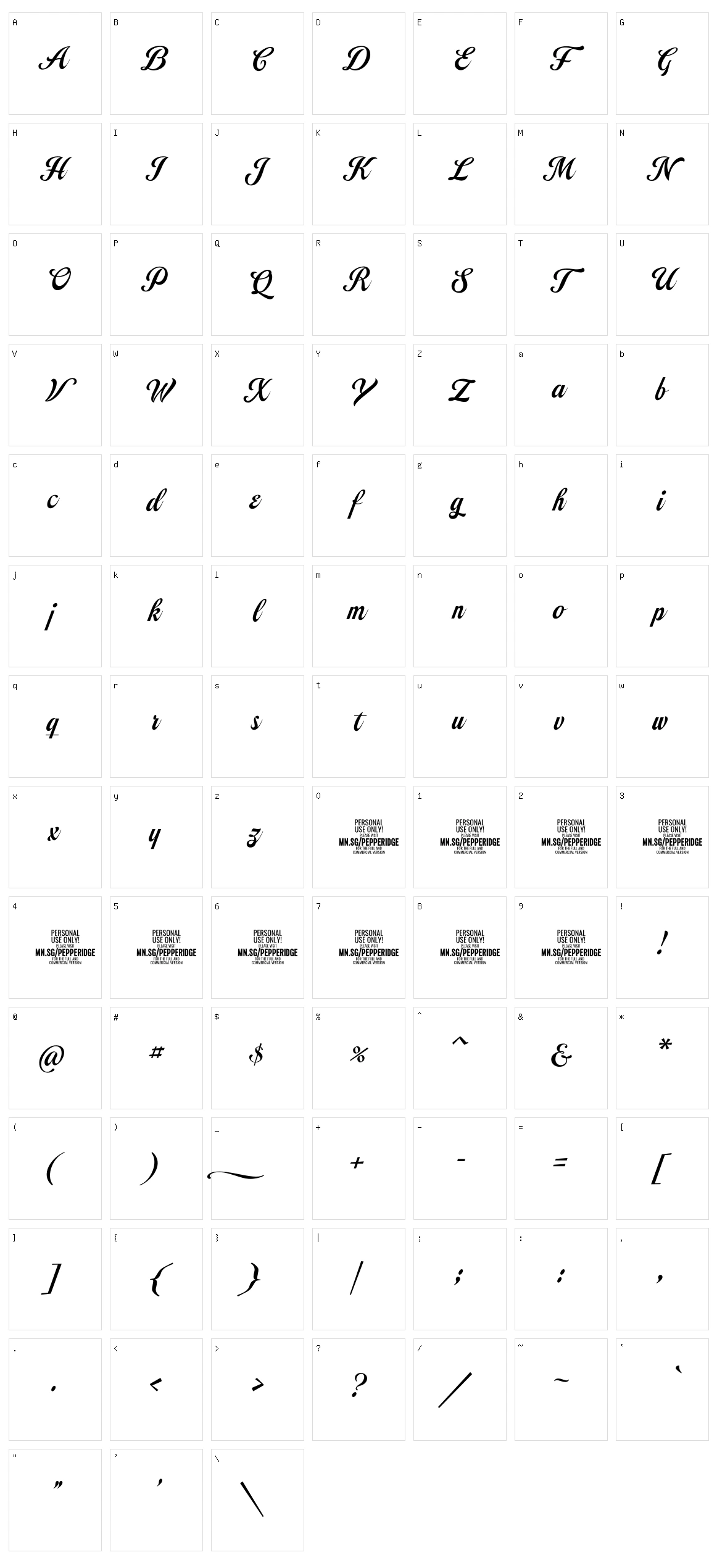
Pepperidge Script is pure vintage charm in a font. Imagine sipping an old-fashioned cocktail in a speakeasy and hearing the laughter and chatter of the past. With each keystroke, this font adds a layer of history to your work.
Use underscore _ to make an underline.
Example: Food_Shop
Use multiple underscores to make differenr swashes.
Example: Swash__iness
Its decorative elements and formal styling make it an excellent choice for vintage advertisements, labels, and any design requiring a touch of the past.
Pepperidge Script is built with advanced OpenType functionality and has a guaranteed top-notch quality, containing stylistic and contextual alternates, ligatures, and more features; all to give you full control and customizability. It has extensive lingual support, covering all Latin-based languages, and includes all the characters and symbols you'll ever need.
Behind this exquisite creation is Mans Greback. Known for pushing the boundaries of type design, Greback has ventured into the intricate intricacies of aesthetic diversity with Pepperidge Script. His portfolio is a testament to his versatility and daring, turning simple alphabets into powerful visual narratives.